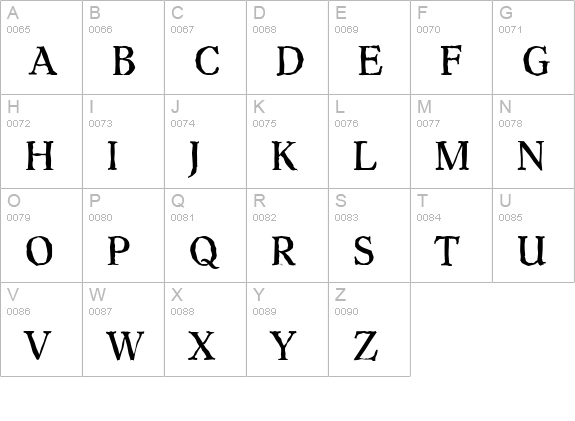
HobokenAntique-Regular Font Details
HobokenAntique-Regular is the standard, neutral variant in the HobokenAntique typeface family \xE2\x80\x94 well suited to general body text, paragraphs, and standard typographic work.
HobokenAntique-Regular font is a timeless and elegant typeface that exudes a sense of vintage charm and sophistication. Its classic serif design and delicate curves make it perfect for adding a touch of old-world flair to any project. Whether you're working on a wedding invitation, a vintage poster, or a logo with a nostalgic feel, this font will bring a sense of timeless elegance to your designs. The best part? HobokenAntique-Regular font is available for free download at FontsMarket.com. With just a few clicks, you can add this beautiful typeface to your collection and start using it in all your creative projects. Don't miss out on this opportunity to enhance your designs with the beauty and elegance of HobokenAntique-Regular font. Download it today and let your creativity shine!